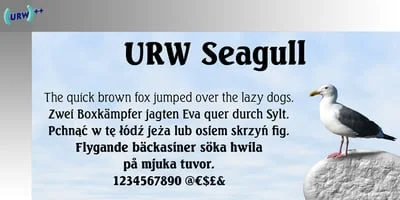
Seagull Font
Seagull Font is perfect for coastal resort branding, seaside restaurant menus, beach vacation promotions, marina signage, oceanic wildlife conservation campaigns, nautical equipment packaging, lighthouse tourism materials, and waterfront property marketing. This graceful typeface brings coastal freedom and maritime elegance to any design project celebrating seaside living and the boundless spirit of ocean adventures.
What makes Seagull Font exciting is its perfect capture of aerial grace and coastal freedom that embodies the effortless flight of seagulls soaring above endless horizons and crashing waves. The flowing letterforms feature wind-swept curves and dynamic movement that create an unmistakably liberating appearance. Each character soars with maritime spirit, making it ideal for brands that celebrate coastal living, ocean exploration, and the freedom found where land meets sea in eternal coastal harmony.
The Seagull Font family typically includes regular and bold weights with complete uppercase and lowercase letters, numbers, punctuation marks, and nautical special characters. Many versions feature additional coastal decorative elements, maritime motifs, and oceanic symbols that enhance the seaside aesthetic and provide creative flexibility for beach and maritime design applications.
Whether you're developing coastal hospitality brands or creating oceanic adventure materials, Seagull Font offers unlimited potential for maritime-themed projects. This liberating typography choice transforms ordinary text into coastal experiences that resonate with audiences seeking ocean adventures and seaside tranquility. The font's graceful nature ensures exceptional appeal across various coastal applications while maintaining its distinctive seabird character that makes every design project feel like a flight over pristine beaches where seagulls dance on ocean breezes in endless coastal freedom.